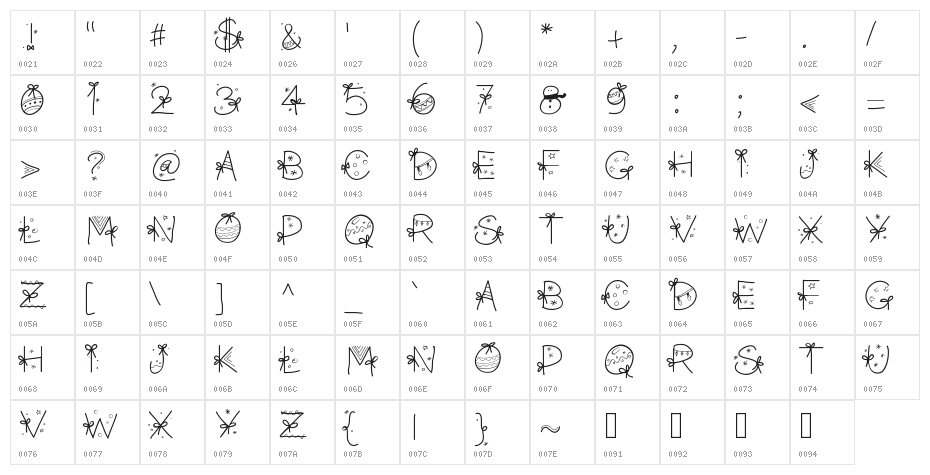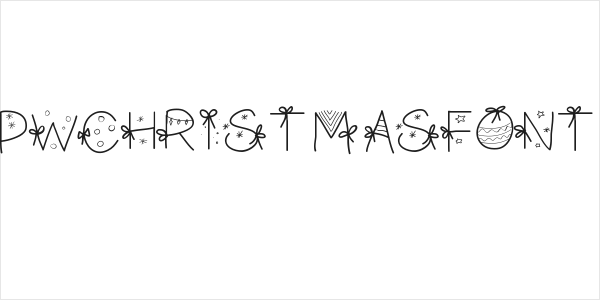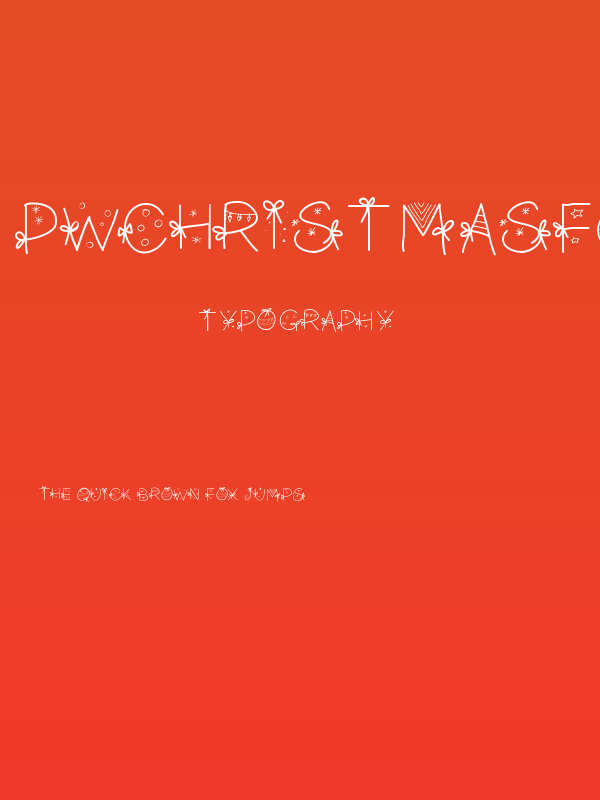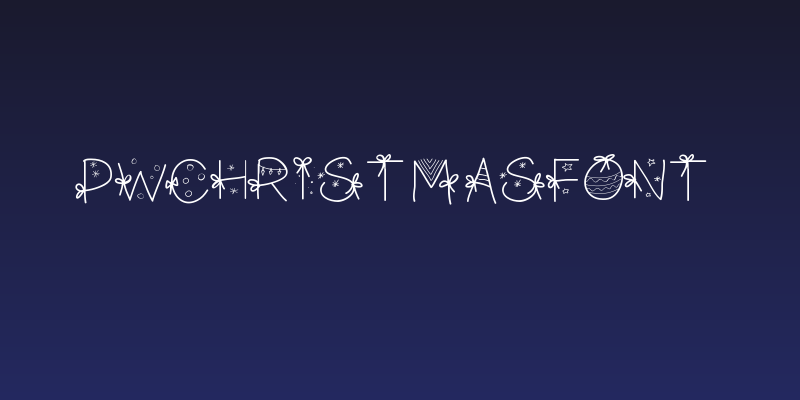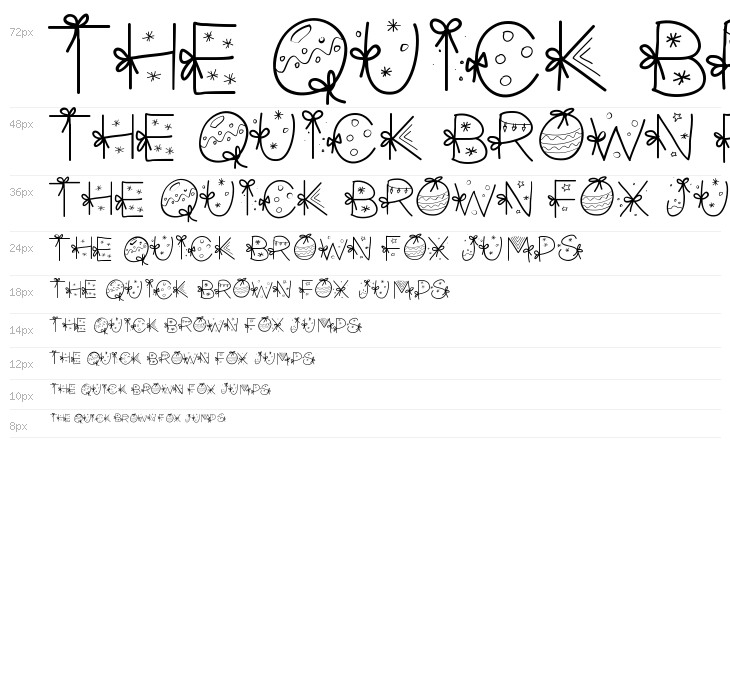
This whimsical and festive font is designed with a playful Christmas theme, incorporating holiday elements such as ornaments, stars, and ribbons into each character. The uppercase and lowercase letters are adorned with decorative motifs, making them perfect for seasonal designs. The numbers and special characters also feature unique holiday embellishments, adding to the overall charm. The font's style is highly decorative, with a focus on capturing the joyful spirit of the holiday season.
| Use Case | Headlines, Logos, Decorative text |
| Proposed Projects | Ideal for holiday greeting cards, festive posters, Christmas party invitations, and seasonal branding materials. |